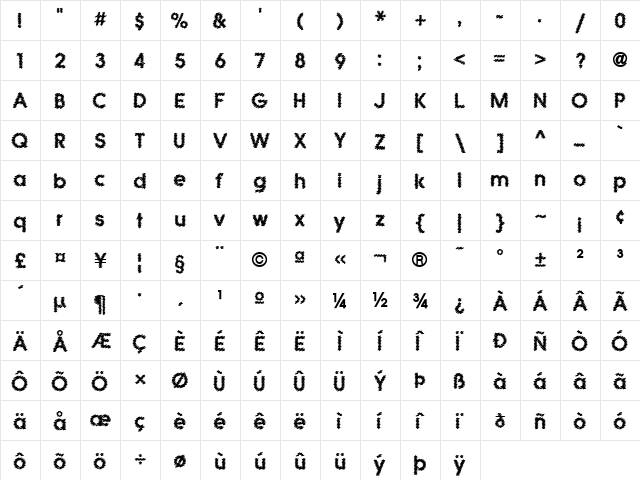
QuicksansFastICG Bold Font Preview
QuicksansFastICG Bold
Design Context for QuicksansFastICG Typeface
QuicksansFastICG is a composed and adaptable typeface that performs quietly and consistently across a wide range of design contexts. Its bold stroke weight gives it real presence on the page.
Pro Tip: Pair QuicksansFastICG with a font of contrasting weight or personality to build a more expressive typographic hierarchy.